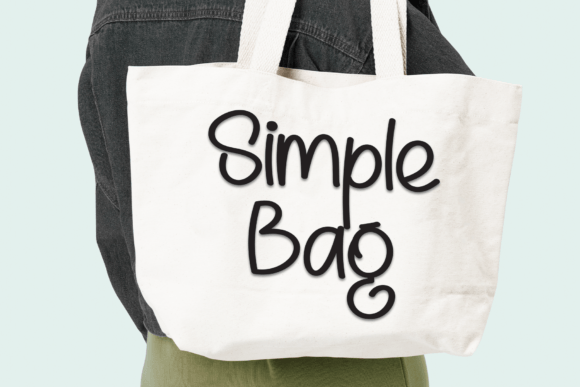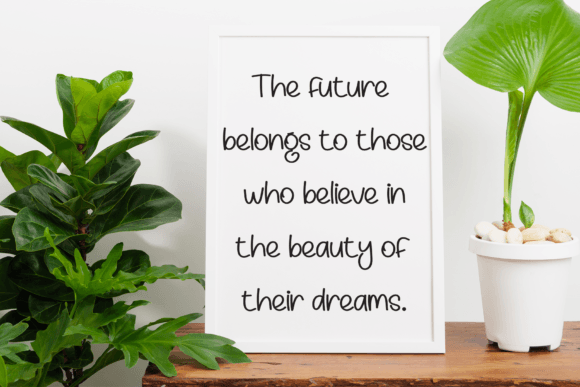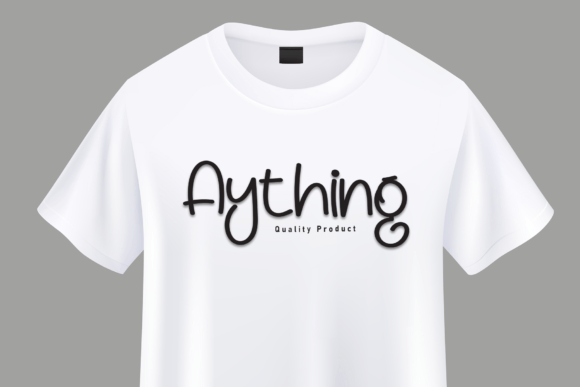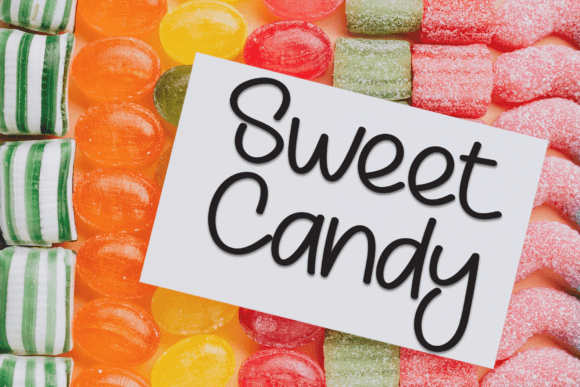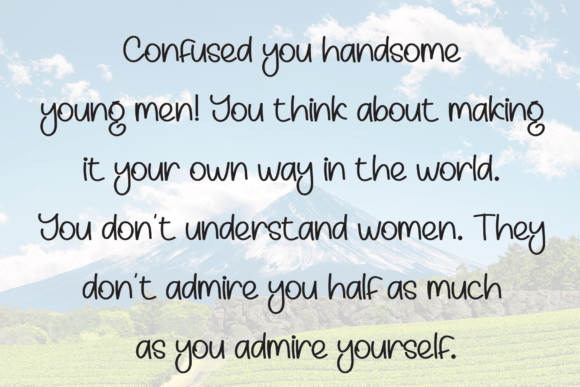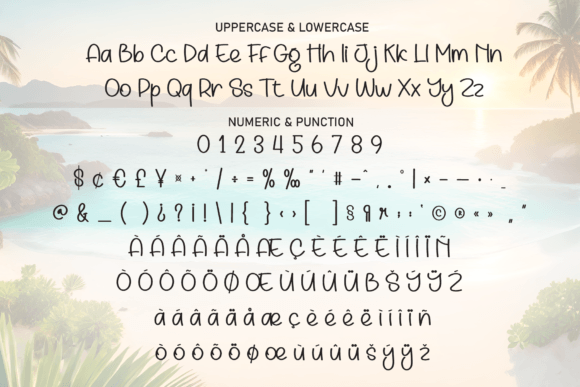
Soaking Up the Summer Vibes: Introducing Beach Paradise Font
There’s something about a sunny day at the beach that sparks creativity. The sound of waves, the warmth of the sun, and the smell of saltwater all combine to transport us to a carefree state of mind. And for designers, this feeling is the perfect inspiration for summer projects. That’s where the Beach Paradise Font comes in – a charming handwritten font that captures the relaxed vibe of a sunny beach day.
With its smooth, flowing letters, the Beach Paradise Font gives a warm, carefree feel to any design. Whether you’re creating a summer-themed poster, a beach-inspired social media graphic, or a casual project for a client, this font is the perfect addition. Its versatility and laid-back charm make it a valuable asset for designers looking to add a touch of summer fun to their work.
Beach Paradise Font Key Features
- Font Family: Beach Paradise – a beautiful, hand-drawn script font
- Unique Characteristics: Whimsical, beach-inspired design; perfect for summer-themed projects, wedding invitations, and beach-inspired branding
Beach Paradise Font Review
Overall, I was impressed with the Beach Paradise Font. It has a unique, laid-back vibe that’s perfect for beach-themed designs or summer-inspired projects.
- The font’s relaxed feel and rounded edges make it easy to read, even at smaller font sizes.
- The font includes a variety of weights and styles, from light to bold, which gives designers a lot of flexibility when it comes to typography.
- The font’s beachy theme is well-executed, with fun and playful touches that evoke the feeling of a tropical paradise.
- The font’s design may be too casual for more formal or corporate projects.
- The font lacks a clear, modern feel, which may make it less appealing to designers who prefer more contemporary typography.
- The font’s character set is not as extensive as some other fonts, which may limit its usability in certain contexts.
The Beach Paradise Font is a solid choice for designers who want a fun, laid-back font that’s perfect for beach-themed or summer-inspired projects. While it may not be the best fit for more formal or corporate projects, it’s a great option for designers who want to add a touch of whimsy and personality to their designs.
Getting the Most Out of Beach Paradise Font
For the best results, use Beach Paradise Font for designs related to summer, tropical destinations, or beach-themed events. This font is ideal for creating a fun and playful atmosphere. Experiment with different font sizes, colors, and combinations to achieve the desired effect.
Beach Paradise Font is perfect for:
- Summer event invitations and promotions.
- Beach-themed business logos and branding.
- Travel and tourism marketing materials.
- Summer-themed social media posts and graphics.
For optimal readability, we recommend using the Beach Paradise Font at a minimum size of 12 points for body text. However, this may vary depending on the specific use case and desired visual style.